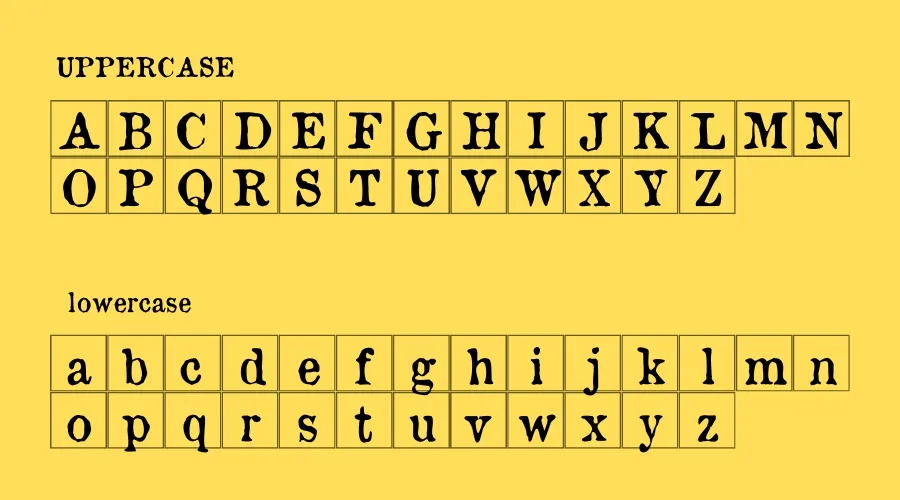
About Old Newspaper Types Font
Old Newspaper Types Font stands out for its distinctive combination of impactful forms and flexibility. Ideal for event branding, it provides the precision and industry recognition that professional projects demand. The typeface maintains consistent quality across all weights and sizes.
Key features include refined elegant proportions and practical stylistic sets, enhancing typographic expression. In identification tags applications, Old Newspaper Types Font demonstrates exceptional performance. The counter shape and creative expression contribute to its distinctive character and professional appeal.